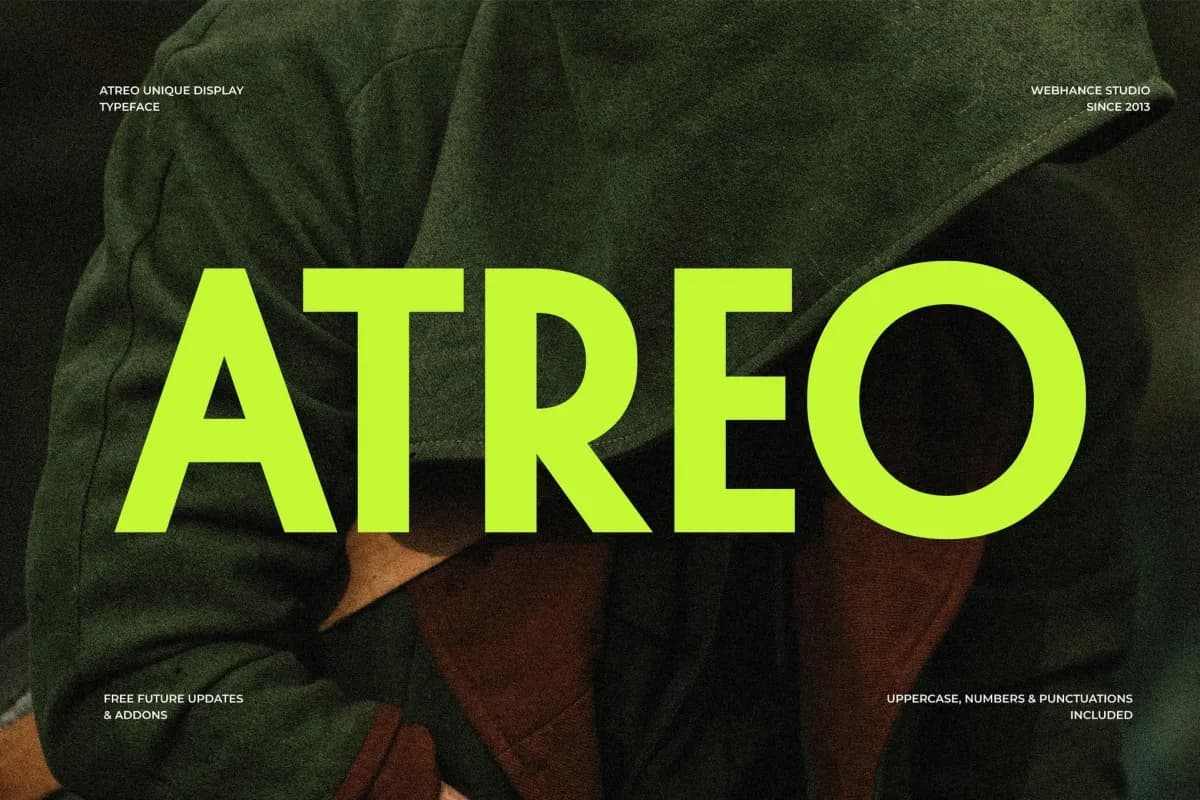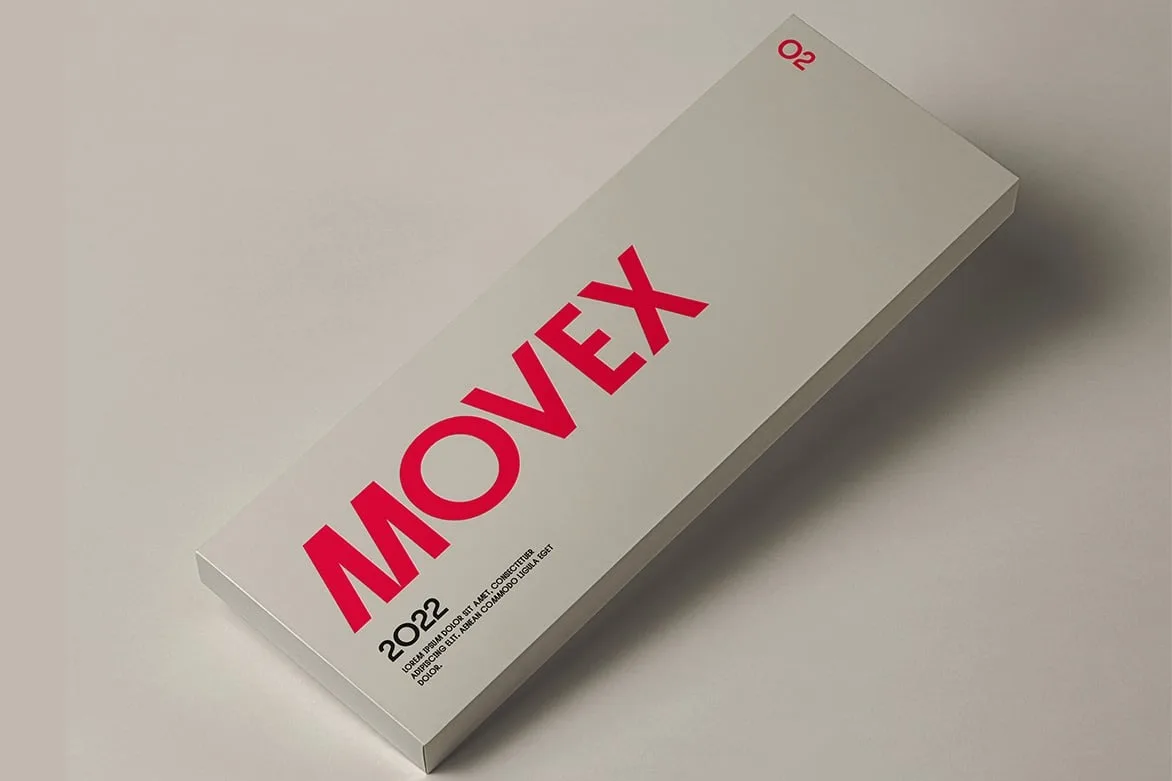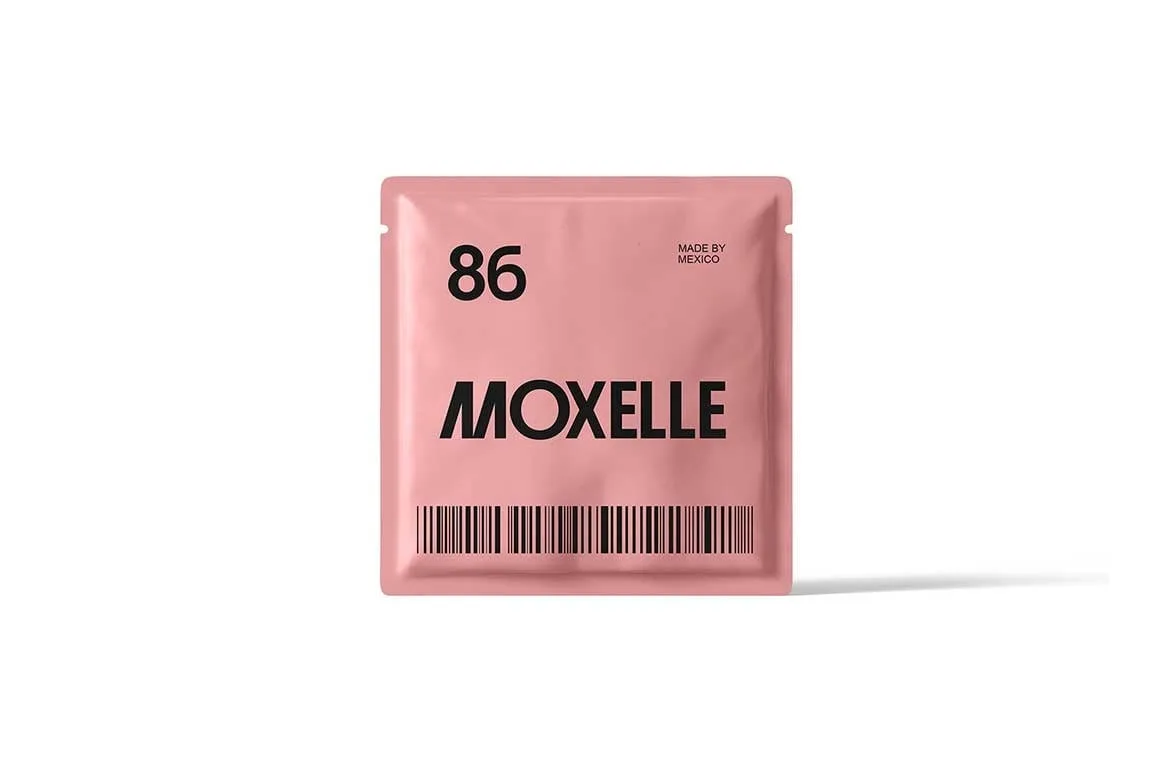
Atreo
Meet The Atreo font family, a contemporary sans-serif typeface meticulously designed by Webhance Studio for versatility and elegance. With its clean lines, balanced proportions, and minimalist aesthetic, Atreo ensures high readability whether you're working in print or digitally. This font brings a refined, world-class look to everything from branding and editorial design to UI/UX interfaces. Atreo includes both uppercase and lowercase letters, numbers, and punctuation, plus advanced features like Stylistic Alternatives and Standard Ligatures (Liga). The comprehensive pack provides OTF, TTF, and full Web Fonts for seamless integration, along with free future updates and feature additions.